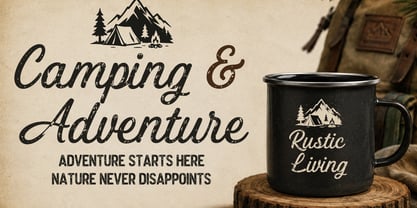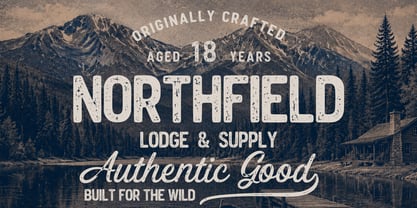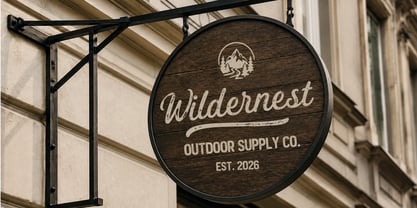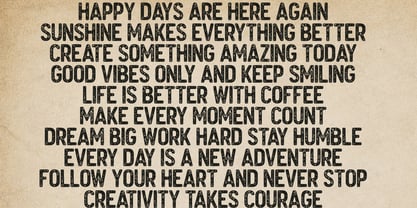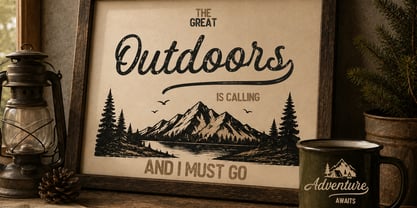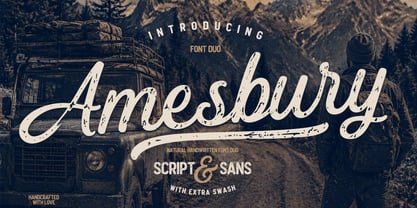
Amesbury
by Cocodesign
The Amesbury Font Family was designed by Muhammad Zaini and published by Cocodesign. Amesbury contains 3 styles and family package options. More about this family
Amesbury is a handcrafted font duo that seamlessly combines the expressive charm of a textured script with the clean confidence of a bold sans serif. This versatile pairing is designed to create authentic and eye-catching typography, making it perfect for projects that require a balance of warmth, character, and readability. The script font showcases a natural handwritten flow with a distressed vintage texture, while the accompanying sans serif offers strong, clean lettering that beautifully complements the script. Enhanced with extra swashes, Amesbury simplifies the creation of distinctive logos, branding, packaging, and striking display designs. This font duo is ideal for outdoor brands, adventure themes, vintage-inspired projects, cafés, restaurants, apparel, social media graphics, posters, book covers, merchandise, product packaging, invitations, labels, and creative editorial layouts.
Designers: Muhammad Zaini
Foundry: Cocodesign